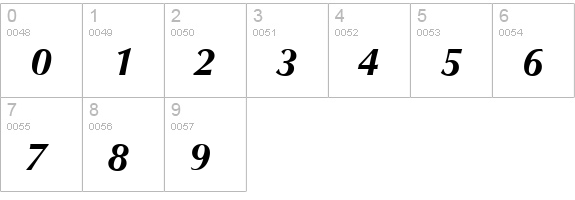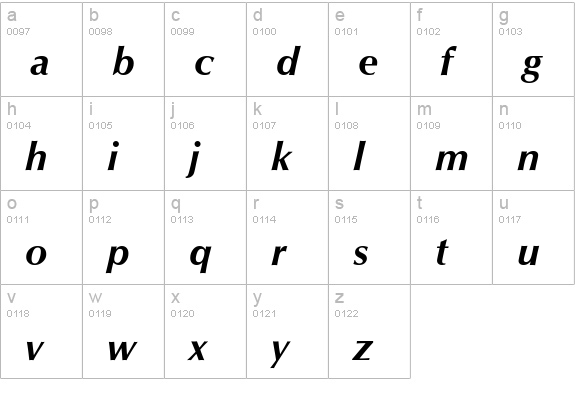
Opus-BoldItalic Font Details
Opus-BoldItalic is a striking and versatile typeface that exudes elegance and sophistication. With its bold and italic design, this font is perfect for making a statement in various design projects. Whether you are creating a modern logo, designing a sleek website, or crafting eye-catching marketing materials, Opus-BoldItalic is sure to leave a lasting impression. What's more, Opus-BoldItalic is available for free download at FontsMarket.com. This means you can easily access this premium font without any cost, making it a valuable addition to your font collection. Embrace the bold and italic beauty of Opus-BoldItalic today and elevate your designs to new heights.